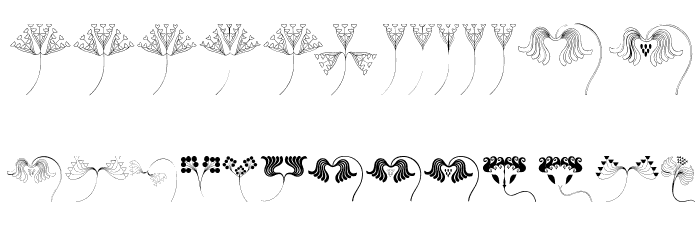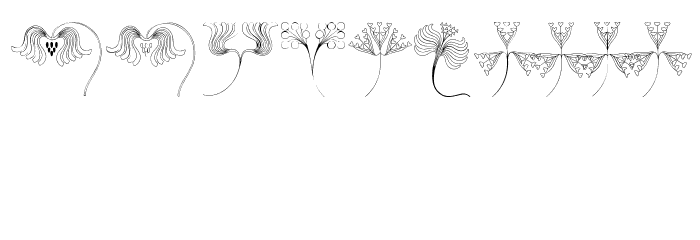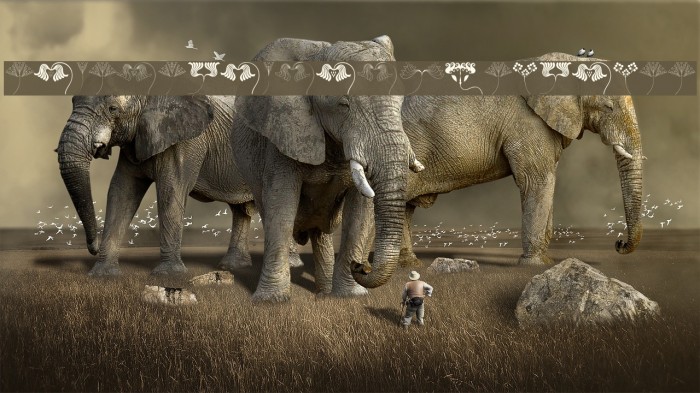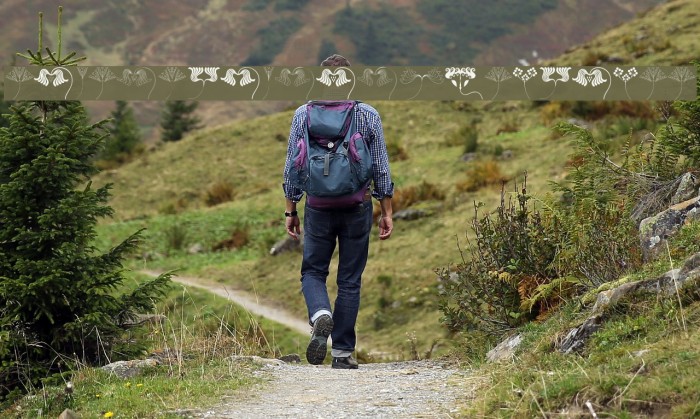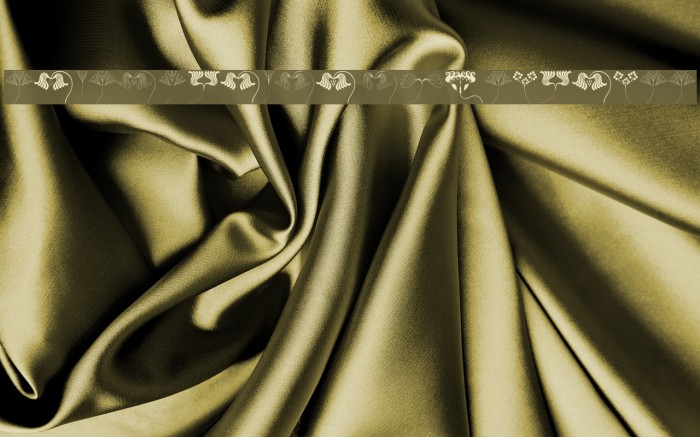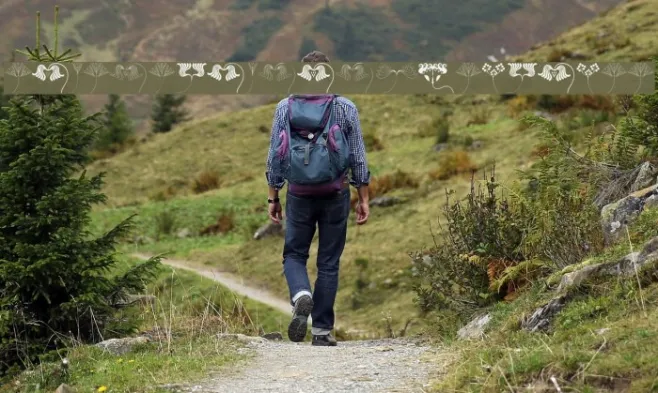
JugendstilFlowersFree Font
This design features a collection of intricate floral motifs inspired by the Jugendstil art movement, characterized by its flowing lines and organic forms. The elements exhibit a harmonious blend of symmetry and asymmetry, with each motif displaying unique patterns and curves. The designs are predominantly monochromatic, with some elements showcasing bold, dark fills, while others are delicately outlined. The overall aesthetic is reminiscent of early 20th-century decorative arts, capturing the essence of nature through stylized interpretations of flowers and leaves.
Intricate Jugendstil-inspired floral motifs with flowing lines and organic forms.
- Proposed Projects: Ideal for use in decorative borders, art prints, textile designs, or as ornamental elements in graphic design projects.
- Overall Style: Vintage
- Use Case: Decorative elements, Art prints, Textile designs